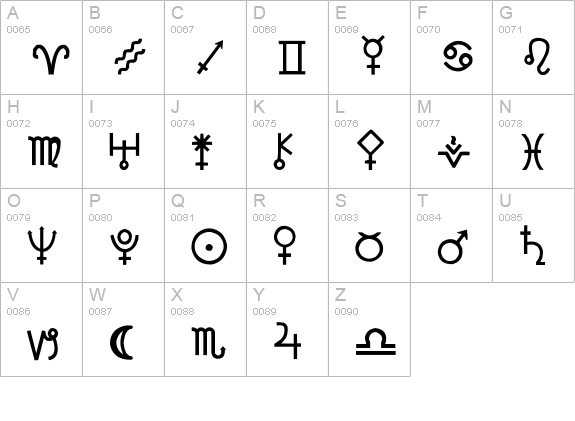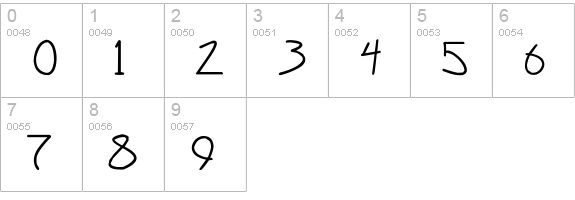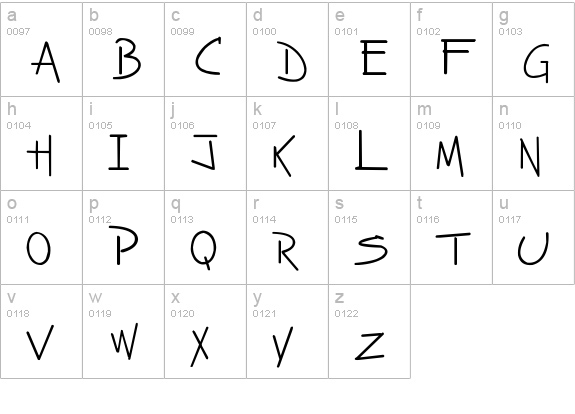
Zahstrology Font Details
Introducing Zahstrology font, a whimsical and captivating typeface that is sure to add a touch of magic to your projects. With its enchanting curves and mystical aura, Zahstrology is perfect for bringing a sense of wonder to any design. This unique font combines elements of astrology and fantasy, creating a truly one-of-a-kind look that will make your text stand out. Whether you're working on a mystical-themed poster, a whimsical invitation, or a magical logo, Zahstrology is sure to make a bold statement. And the best part? Zahstrology font is completely free to download at FontsMarket.com. So go ahead and unleash your creativity with this spellbinding typeface today!